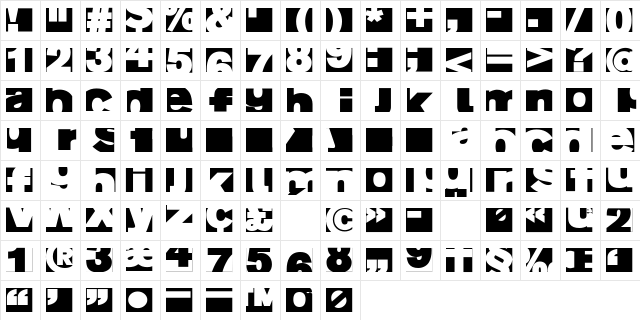
AirFragmented Regular
Design Context for AirFragmented Typeface
AirFragmented is a composed and adaptable typeface that performs quietly and consistently across a wide range of design contexts.